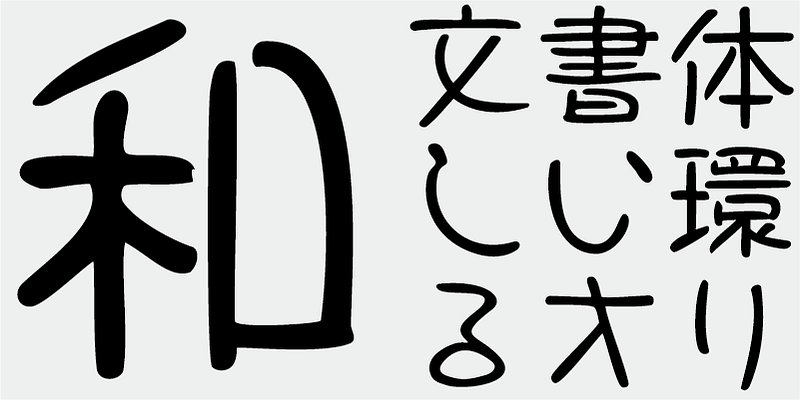
AB Hasemomo R Font Free Download is a unique and elegant typeface that combines the characteristics of traditional Japanese brush calligraphy with a modern design sensibility. With its soft curves and natural strokes, AB Hasemomo R is ideal for designs that need a touch of warmth, culture, and artistry—perfect for product packaging, branding, invitations, and creative projects.
The R variant offers a refined balance between expressiveness and readability, giving your designs a smooth, flowing aesthetic. It supports both Japanese and Latin scripts, making it a versatile choice for bilingual projects or those looking to combine Eastern and Western typographic styles.